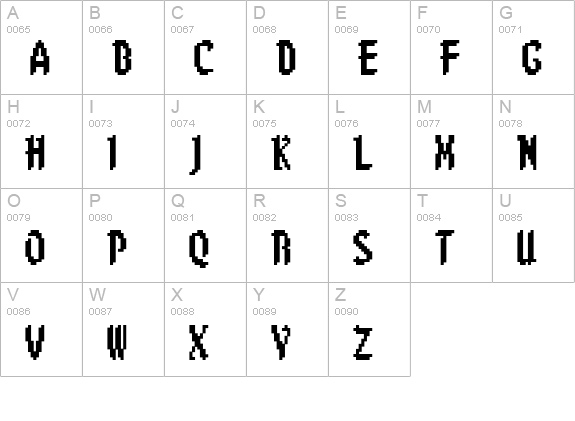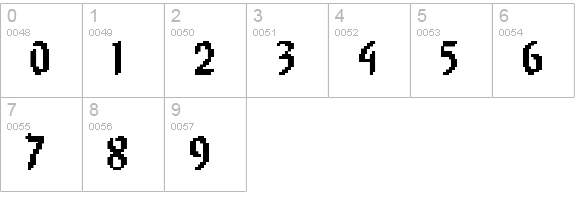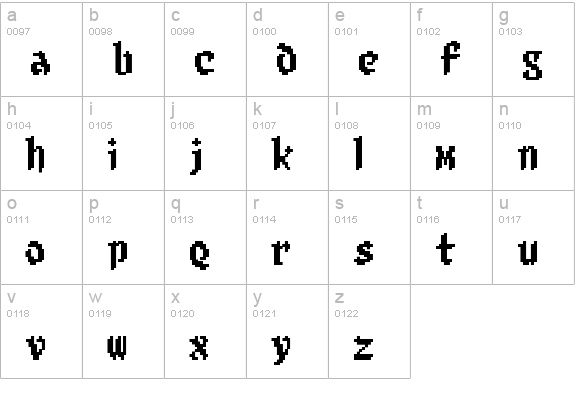
8-bit Limit (BRK) Font Details
8-bit Limit (BRK) font is a charming and retro-inspired typeface that brings a touch of nostalgia to any project. With its pixelated design reminiscent of classic video games, this font captures the essence of the 8-bit era. Perfect for adding a fun and quirky element to your designs, 8-bit Limit (BRK) font is versatile and eye-catching. Best of all, this font is available for free download at FontsMarket.com. Whether you're working on a gaming website, a party invitation, or a creative project that needs a touch of vintage flair, 8-bit Limit (BRK) font is a fantastic choice. Embrace the playful spirit of the 8-bit aesthetic with this delightful font that is sure to bring a smile to your audience's faces. Download it now and let your creativity run wild!